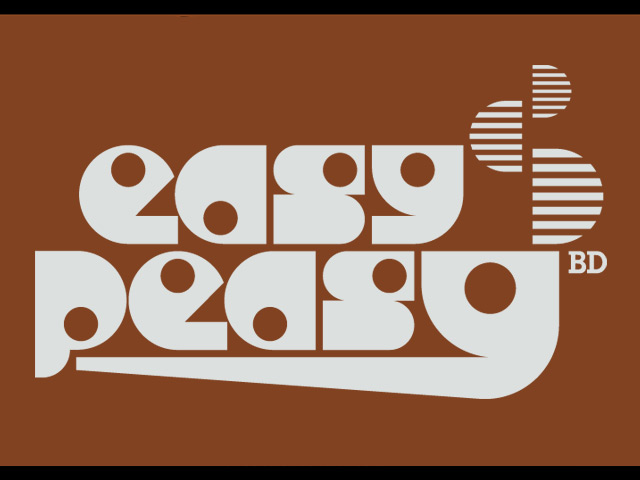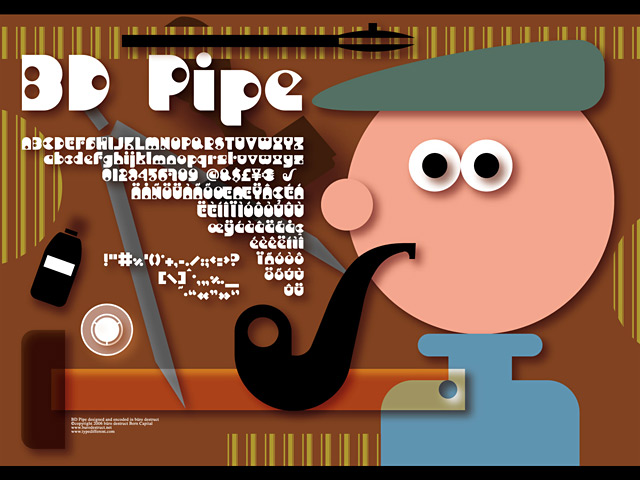
Personal Use Free BD Pipe 0 197 FacebookTwitterPinterestWhatsApp 1 of 2 About BD Pipe Font BD Pipe is fancy rounded free font great for comic and games. Easy Peasy! DOWNLOAD NOW